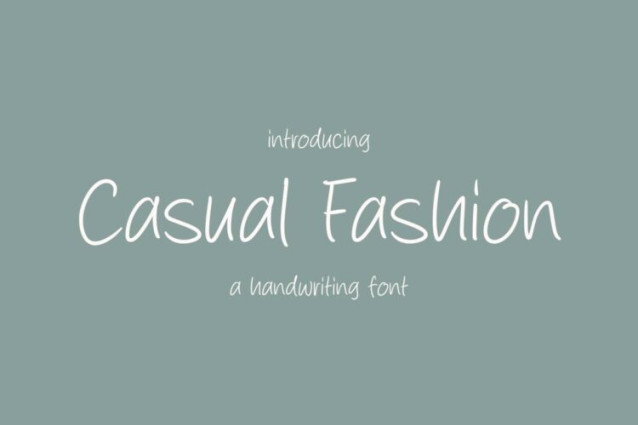
Casual Fashion Font
Casual Fashion Font is a simple and friendly handwritten font. Its natural and unique style makes it incredibly fitting to a large pool of designs. The only limit is your imagination!